Handwriting adds a layer of warmth that standard typefaces simply cannot reach. If you are looking to add a playful charm to your projects, using cute handwriting fonts is the perfect way to make them feel approachable and sweet.
Finding the right balance between legibility and personality is key when working with organic lettering. These typefaces offer a unique, handcrafted aesthetic that helps your brand speak. Let’s dive in and get inspired!
Simple Fine is an expressive typeface among the cursive handwriting fonts. This one features the natural, bleeding ink look.
Misty Note is a handwritten font that conveys intimate, personal feelings. Its fluid, natural rhythm is perfect for casual-themed projects.
Dreamy Journals is one of our cute handwriting fonts. This font has tall letters, repeated strokes, and charming letterforms perfect for your book-related concepts.
Nottalie is perfect for casual, heartfelt writing. This adorable font exudes personal touches, sincere strokes, and calming vibes.
Differing from the typical handwriting look, Rutabaga opts for the bold, urban brush visual. It exudes creative vibes and movement to your designs.
If you’re aiming to find a font that looks like handwriting, Afelanity is the one. This font still holds modern script standards while displaying the warmth of natural handwriting.
Nouttera is a brush script font with a unique orientation and proportion, creating a natural handwritten feel. This font is perfect for longer text or quotes.
Estimatetic has a brush, almost dry-brush look. The lack of crisp lines makes this font stand out from the overly “tidy” fonts.
Cute, adorable, and heartfelt, that is the description of Arwen. This font has a delicate script look, written in dry-brush swipes.
When looking for a charming typeface, Une Evanora must be on your radar. This marker script font has a chic, magical feel to it.
With Rimstone Laroe, your natural vibes will be complete. This font utilizes rough brush strokes and further supports floral concepts.
Lumio is also among our cute handwriting fonts, and this one has two types. Its bold look is perfect for your hero text, while the thin, monoline option is a versatile choice.
If you’re looking for a more sophisticated style of a handwritten typeface, use Ballenoa. This font has smooth, thin lines with luxurious vibes.
Qanselita is an elegant handwritten font that really focuses on showcasing a masterful touch. This font has confident, yet gentle swipes.
If you’re into a font that looks like shitty print handwriting, try Domea Scrawl. This font elevates the style with unpredictable thickness and size.
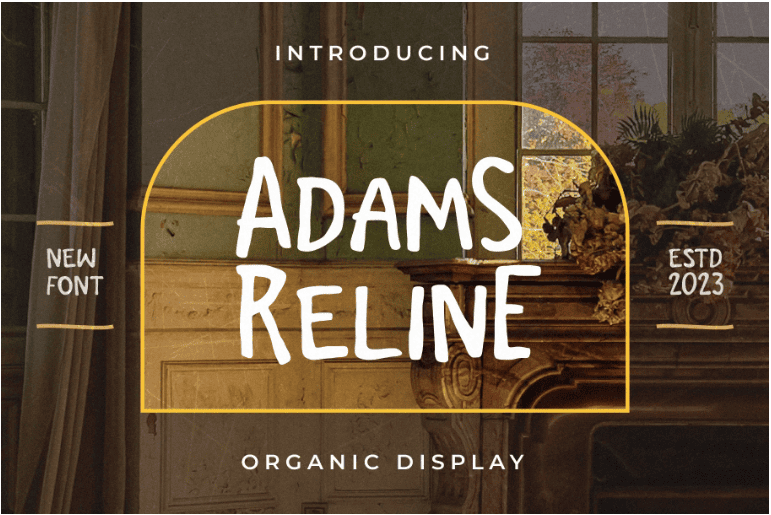
Adams Reline is an all-caps organic typeface that imbues a sense of elegance. This font is perfect for your hero text while maintaining grace and restraint.
Savoria Rins excels in delivering a calming voice. This organic, handwritten font combines script and brush aesthetics.
Self Written is the most realistic handwritten font you can find. This font has unique, imperfect letterforms without being obnoxious.
Dattena Resistance is the embodiment of classy handwriting. This font delicately and confidently glides on every media.
Using the style of Cassana Rustine, your design will feel luxurious, yet personal. Hence, Cassana Rustine fits most of the fashion brand voices.
Among our handwritten fonts, Ginger Vienta taps into the realm of movements. This font has quick, precise strokes and striking visuals.
When you write with Midsta, your message can have several aura. This font has a chic, feminine look, a hint of jolly, and a mysterious vibe.
Deviating to a more masculine, rebellious handwriting, we have Wister Domn. This font displays an urban, adventurous look for your text.
Dastine Oramica is a calming font. This organic serif typeface elevates your natural concept with a touch of modernity.
Anattone completes the calming and captivating look with a refined touch. This font has natural swipes and contrasting strokes.
For a handwriting font, Rhaganeo takes it differently. This font uses stylized swirls and loops without cluttering the visual.
When it comes to cute handwriting fonts, Jenthina is the font. This thick font gives off a chubby look while still being elegant.
Famingo Ranita is a distinctive typeface featuring delicate, thread-like strokes that instantly capture attention and make the design hard to overlook.
Writterine is the performative type among handwriting fonts. This font uses a brush look and wider strokes to better pop on your design.
Using Desimate Stronger, your design gets infinitely cooler. This font features a brush, graffiti-like attitude that fits a wide range of concepts.
Whether you are seeking organic textures or casual, personal letterforms, embracing the “perfectly imperfect” nature of handwriting fonts can truly elevate your work. Keep experimenting with these styles to bring a genuine, human touch to every design!